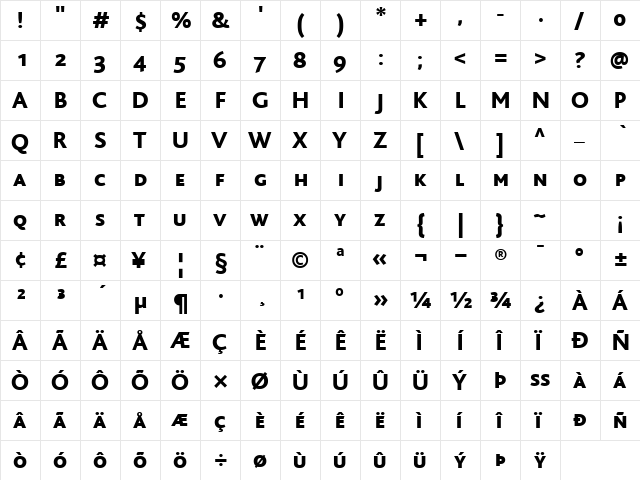
BlissCapsHeavy Regular
Design Context for BlissCapsHeavy Typeface
BlissCapsHeavy offers clean, dependable letterforms without strong stylistic allegiance, making it a practical choice for designers who need flexibility.